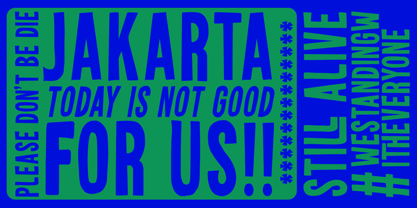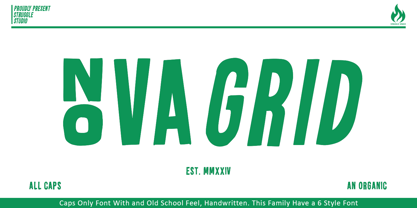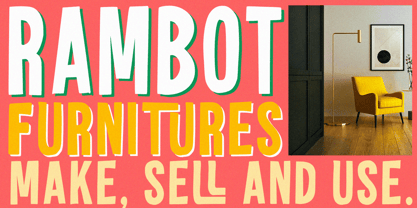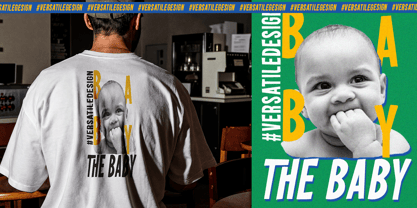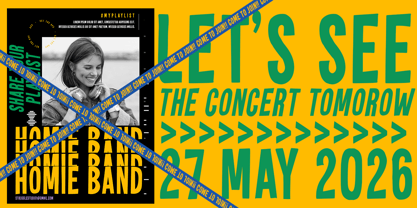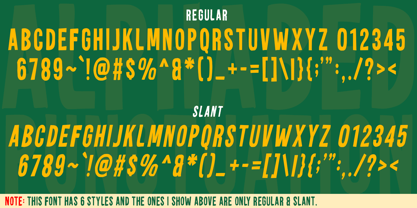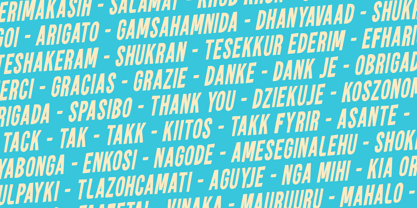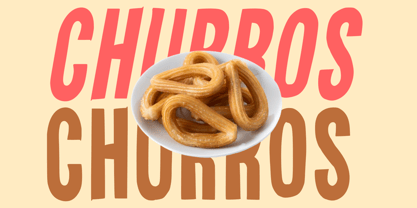
Nova Grid
The Nova Grid Font Family was designed by Andri Kurniawan and published by Struggle Studio. Nova Grid contains 6 styles and family package options. More about this family
Nova Grid – All Caps Handwritten Display Font
Nova Grid is a bold all-caps handwritten font with a unique old-school vibe and organic feel. Designed to stand out, this font combines strong, handcrafted strokes with a playful touch, making it perfect for eye-catching titles, posters, branding, merchandise, and editorial layouts.
This font family comes with 6 distinctive styles, giving designers flexibility to mix and match while keeping a consistent personality. Its organic imperfections bring a natural, human touch to any design, striking the balance between vintage charm and modern boldness.
Whether you’re working on retro-inspired projects or fresh contemporary concepts, Nova Grid adds character and confidence to your typography.